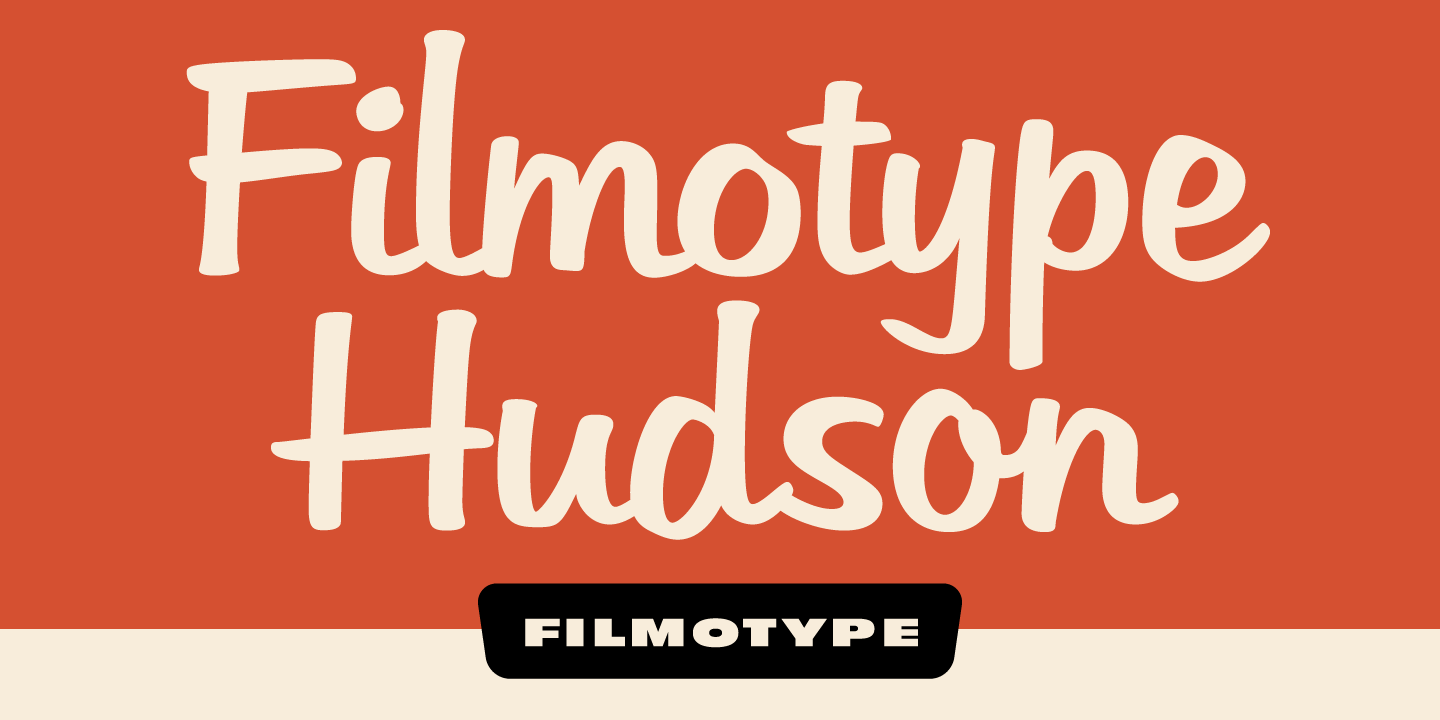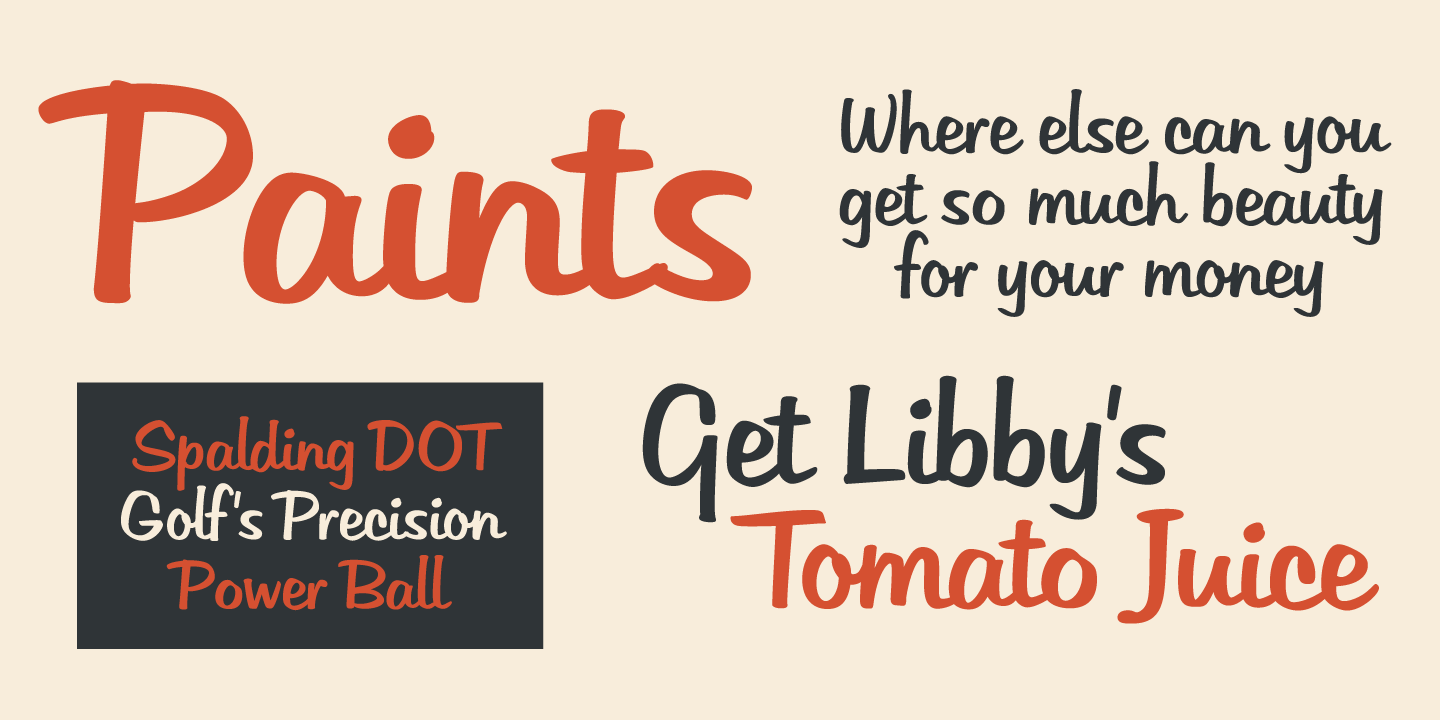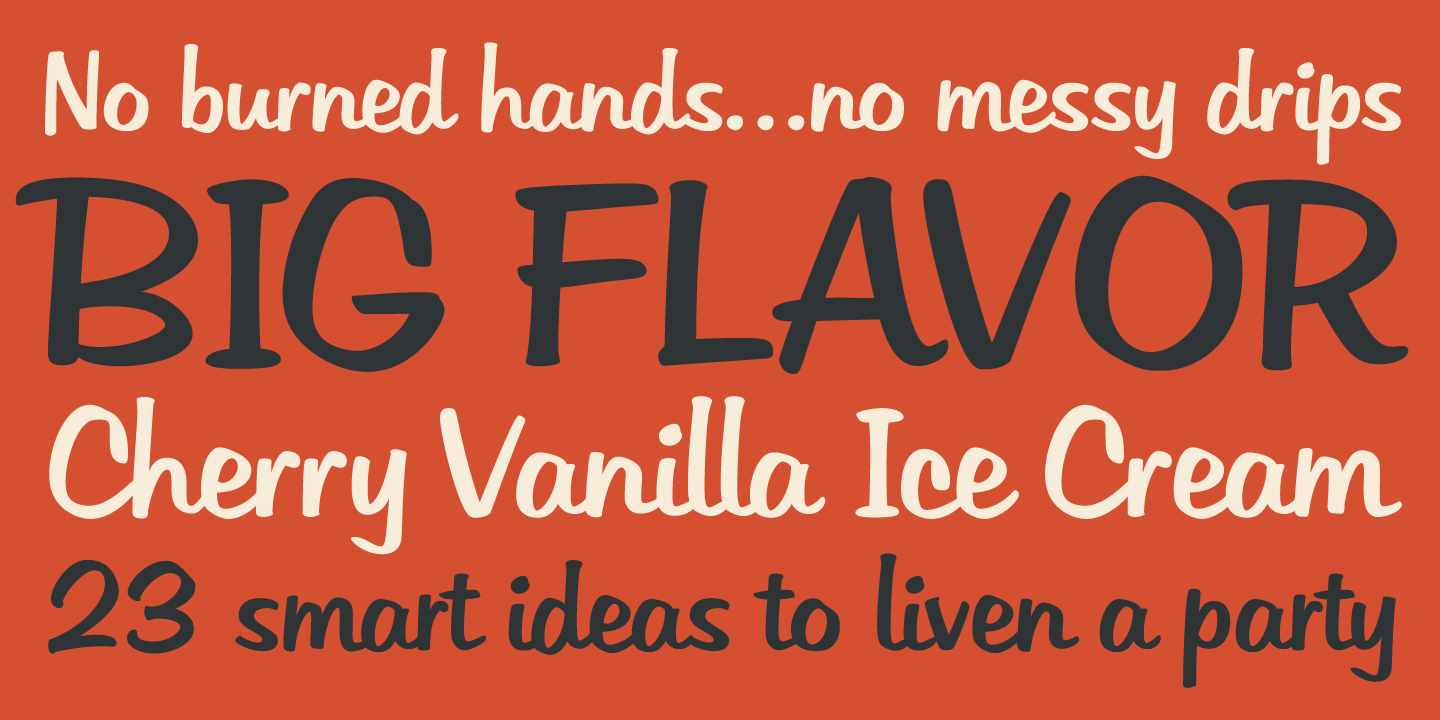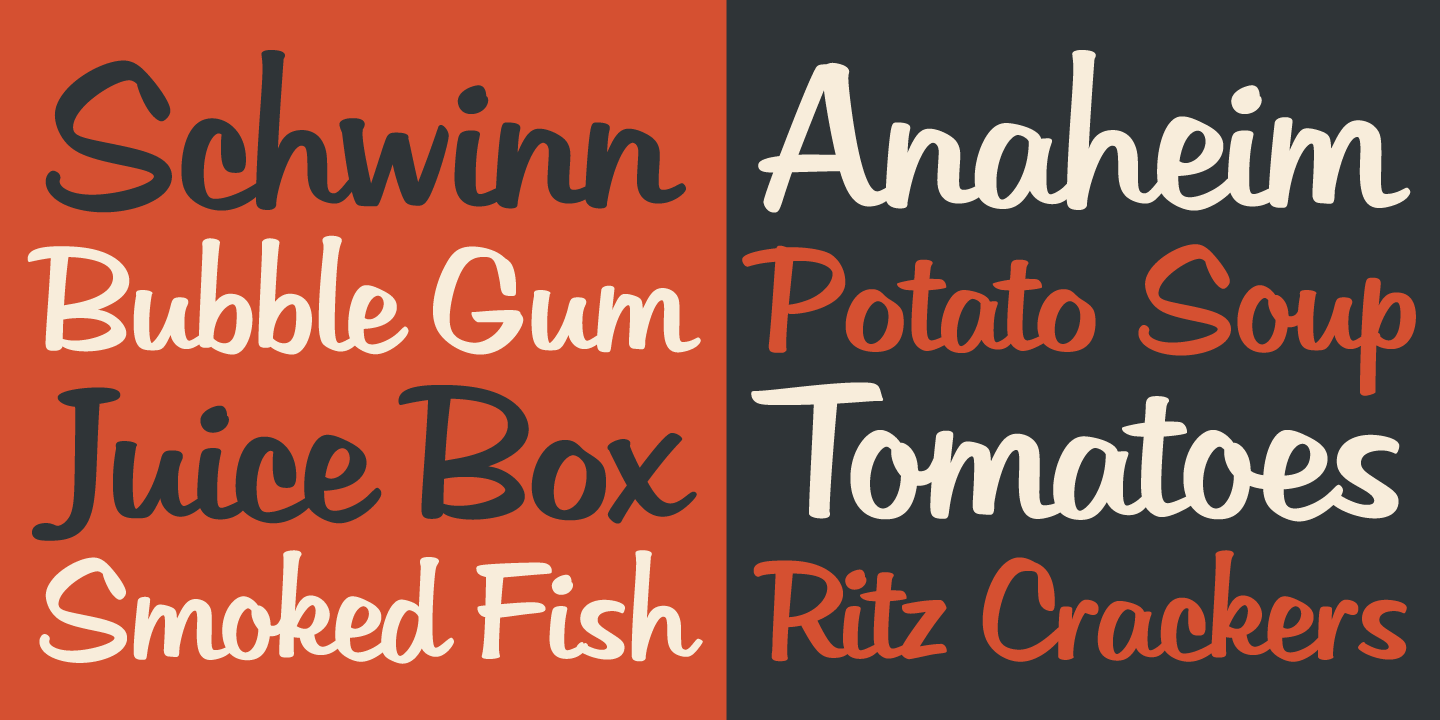
Filmotype Hudson
Released by Filmotype in 1955, Filmotype Hudson was among Filmotype's most popular upright informal style brush scripts inspired by sign painter classic brush script styles popular in the 1950s in periodical advertisements for automotive dealerships, grocery stores and spectaculars to grab attention of passers by.
Filmotype Hudson was developed from the original font filmstrips and includes a full international character compliment, automatic fractions, ordinals, with a complete set of alternate characters and ligatures to allow flawless typesetting in dynamic OpenType format.
It's cousin Filmotype Kellog was released in the late 1950s after demand from its customers to create an italic version of Filmotype Hudson.